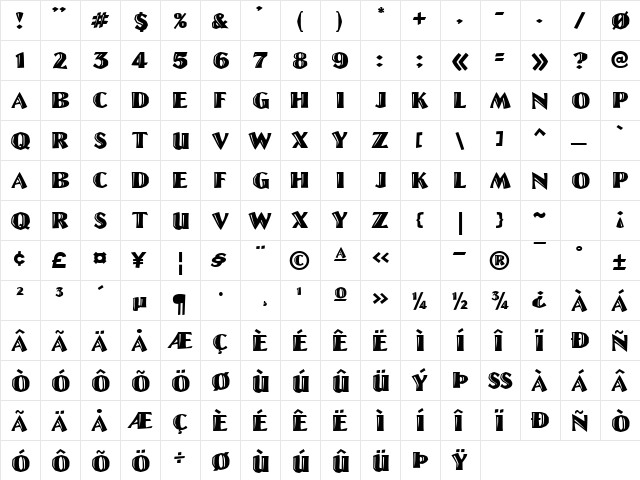
GE Letter Cut Regular
Design Context for GE Letter Cut Typeface
GE Letter Cut is a composed and adaptable typeface that performs quietly and consistently across a wide range of design contexts.